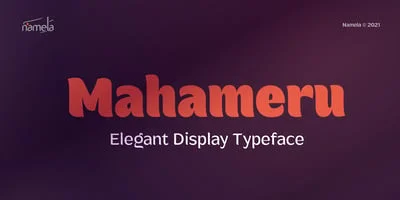
Mahameru Font
Mahameru Font is perfect for Indonesian cultural centers, Southeast Asian restaurants, Hindu temple signage, Buddhist meditation centers, Indonesian tourism marketing, traditional Javanese art exhibitions, sacred mountain pilgrimage materials, spiritual wellness retreats, Indonesian heritage festivals, traditional batik textile branding, volcanic tourism promotions, and authentic Indonesian cultural celebrations.
This font is exciting because it embodies the sacred majesty and spiritual grandeur of Mount Semeru, Java's highest peak and the legendary abode of the gods in Hindu-Javanese cosmology, featuring powerfully elevated letterforms that rise with the same divine authority and spiritual magnificence found in ancient Indonesian temples where devotees have journeyed for centuries to connect with the sacred energies that flow from Indonesia's most revered volcanic summit. The majestically structured character design captures both the geological power of active volcanoes and the spiritual significance of sacred mountains in Indonesian Hindu-Buddhist traditions, creating typography that feels both naturally powerful and spiritually transcendent. Each letter ascends with the kind of sacred energy and cultural reverence that transforms ordinary text into expressions worthy of Indonesia's most holy mountain and ancient spiritual traditions.
The Mahameru Font family includes regular and bold weights with complete character sets featuring Indonesian-inspired numerals, spiritual punctuation marks, and decorative elements reminiscent of traditional Javanese temple architecture, volcanic mountain silhouettes, sacred Hindu symbols, and Indonesian cultural motifs. Advanced versions may offer additional stylistic variants with enhanced mountainous effects, alternate characters that reflect traditional Indonesian lettering practices, and ornamental elements that celebrate the rich heritage of Indonesian spiritual culture and volcanic landscape reverence.
Whether you're developing Indonesian cultural branding, creating spiritual tourism materials, or designing authentic Southeast Asian content, Mahameru Font provides the sacred majesty and cultural authenticity your project needs to honor Indonesian spiritual traditions while connecting with audiences who appreciate the profound beauty of Hindu-Javanese culture and the sacred power of Indonesia's magnificent volcanic landscape. This typeface transforms ordinary text into spiritual declarations that celebrate both Indonesian cultural heritage and the universal appeal of sacred mountain traditions. The font's spiritual character makes it ideal for organizations and projects that honor Indonesian culture and spiritual pilgrimage. Indonesian heritage enthusiasts and spiritual tourism advocates will appreciate how this font brings authentic sacred mountain energy to their work with its genuinely majestic and spiritually powerful character that honors Mahameru's divine legacy.